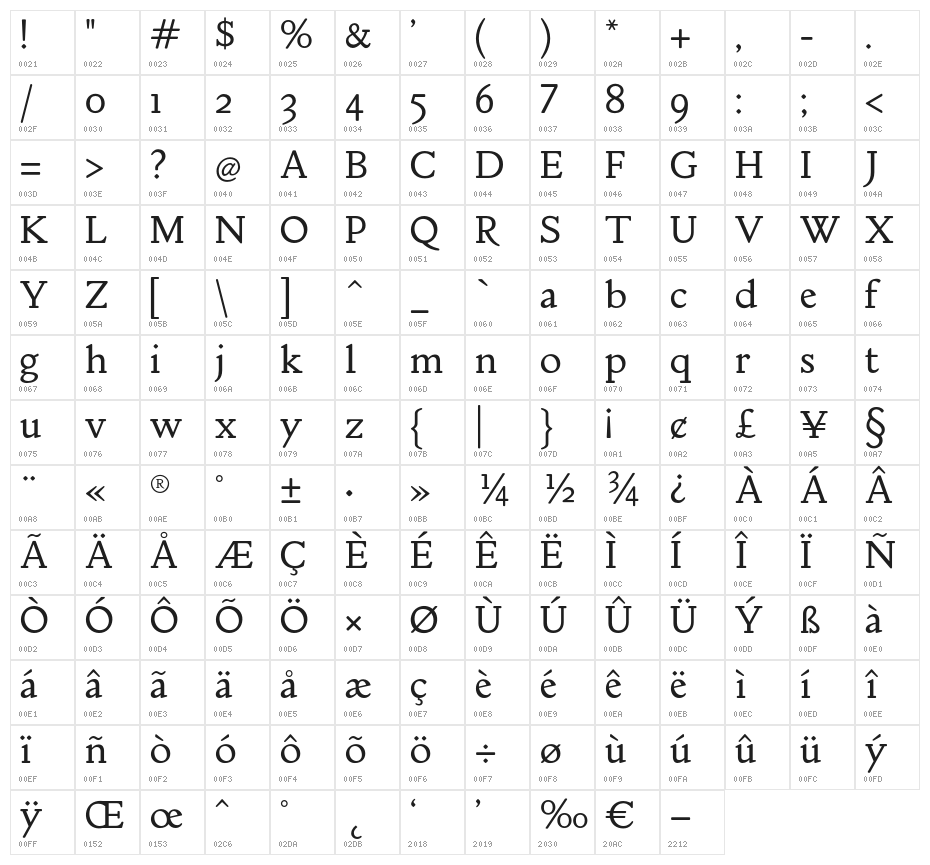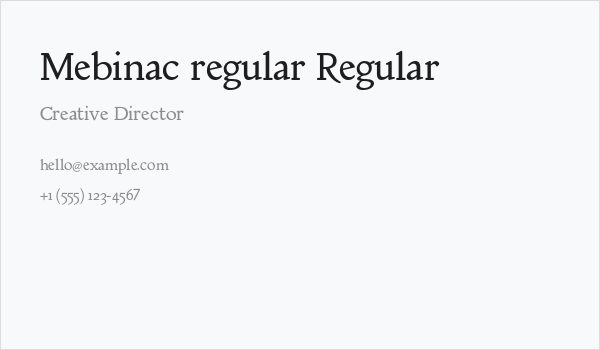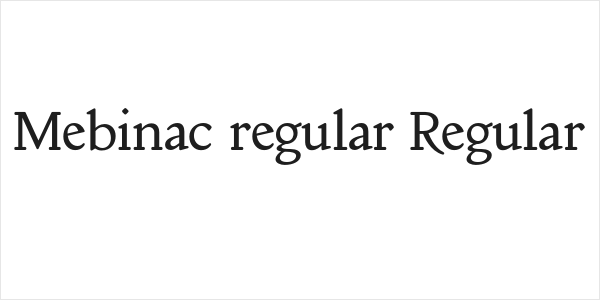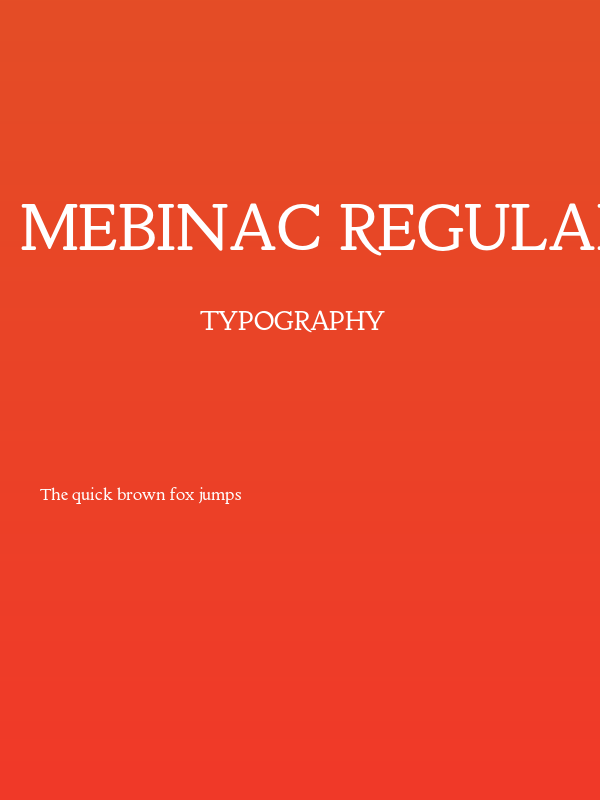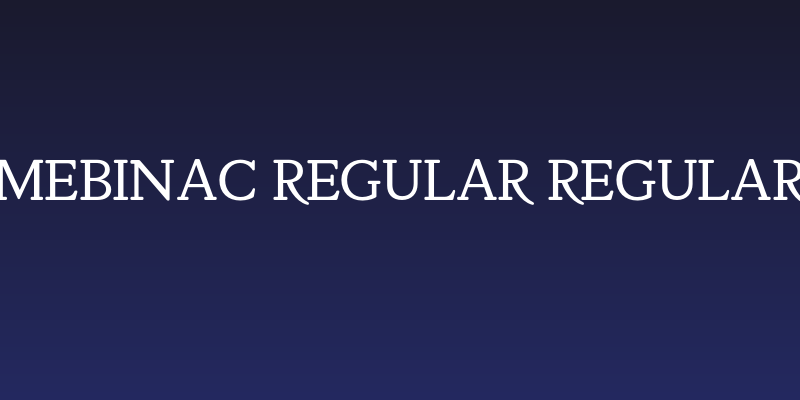
Mebinac regular Regular Font
Mebinac regular Regular Description
This font features a classic serif style with elegant and refined strokes. The uppercase letters are bold and commanding, while the lowercase letters maintain a balanced and readable form. The numerals are distinct and clear, making them suitable for both formal and casual contexts. Special characters are well-integrated, maintaining the overall aesthetic of the typeface. The font's design is versatile, making it suitable for a variety of applications, from print to digital media.
| Overall Style | Classic |
| Use Case | Headlines, Body text, Logos |
| Proposed Projects | Ideal for book covers, editorial design, branding, and formal invitations. |